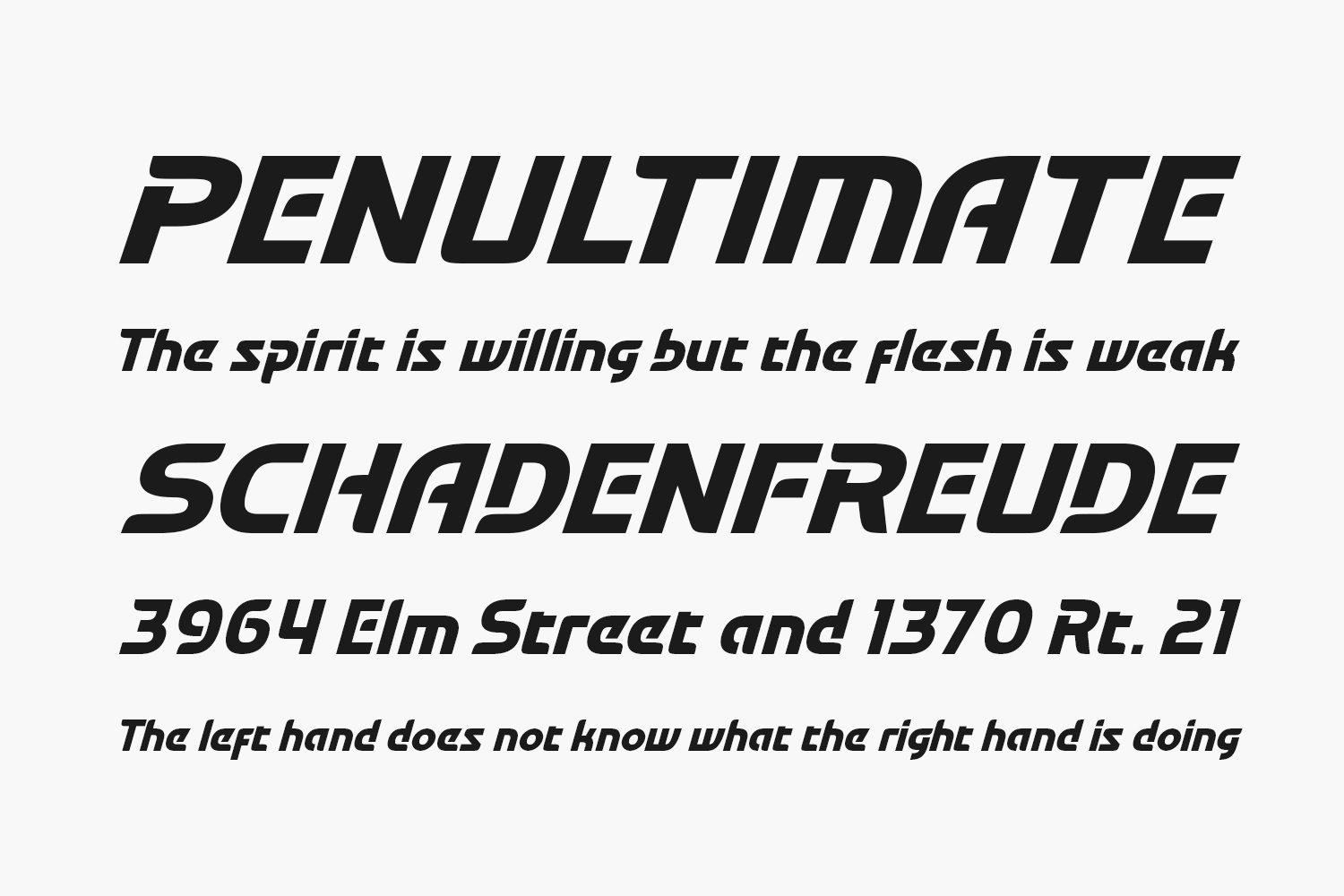
Elevate your designs with Techno Race Free Font, a bold and athletic display font that exudes a cool and dynamic vibe. Perfect for titles, logos, typography, apparel, magazines, brochures, packaging, and beyond, this font adds a touch of modernity and professionalism to your creative projects. Download the font for free if you need it for personal use or purchase the full version for commercial use.
Designed by Nirmana Visual